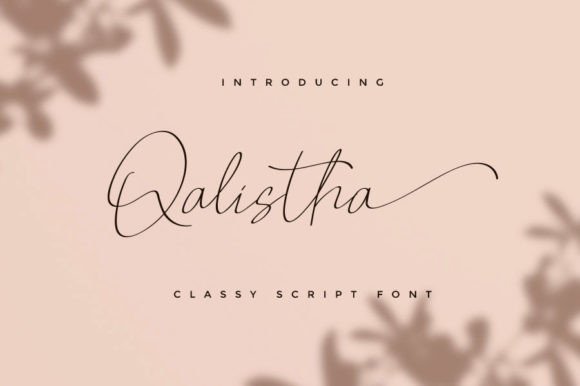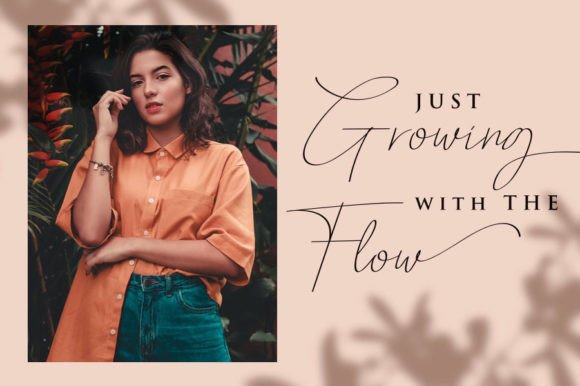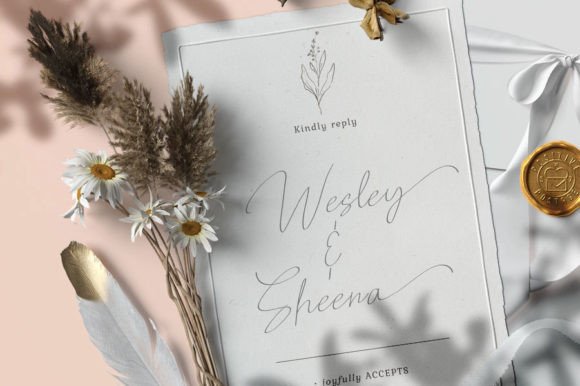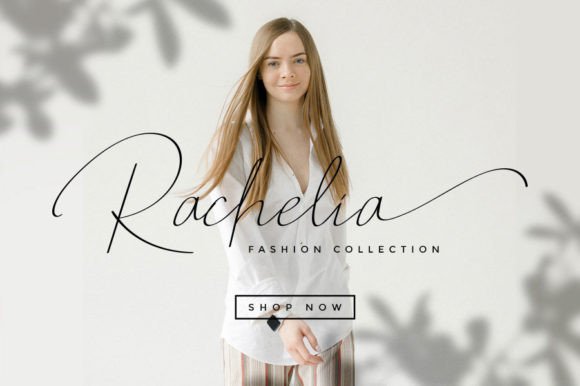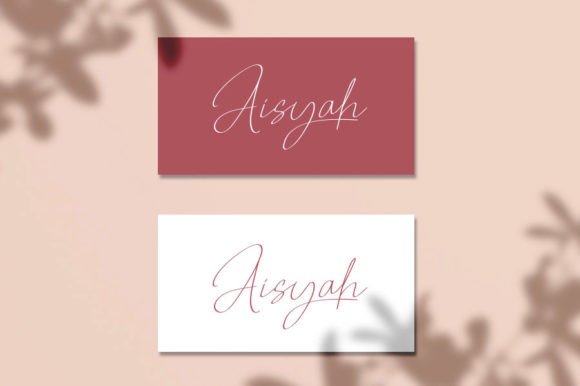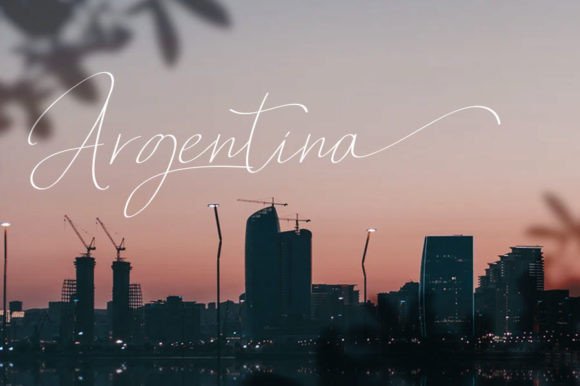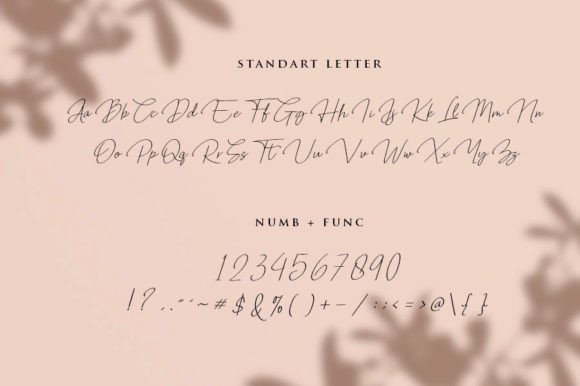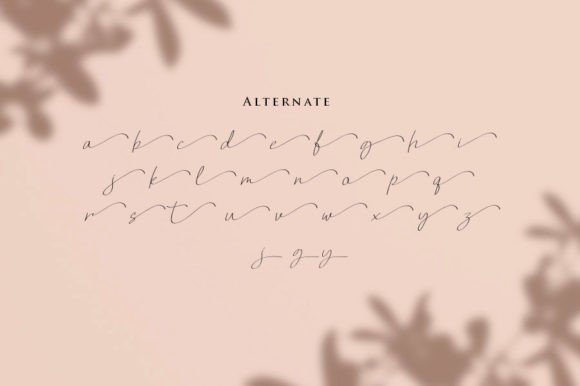
HomeScript FontsQalistha Font Script Fonts Qalistha Font FacebookXPinterestWhatsApp Qalistha Font Poster 2 Qalistha Font Poster 3 Qalistha Font Poster 4 Qalistha Font Poster 5 Qalistha Font Poster 6 Qalistha Font Poster 7 Qalistha Font Poster 8 Qalistha Font Poster 9 About Qalistha Font Qalistha is a sweet and elegant script font that will turn any design idea into an authentic piece of art! DOWNLOAD ON CREATIVE FABRICAThis font is sold and delivered by Creative Fabrica. Font Canyon may earn a commission if you buy through this link. People also explored Watermelon Font Roseblue Font Kindalike Font Fun Happens Font Crowd Heart Script Font Butterfly Font Flower Tops Font Cosmo Space Font Shania Quinton Font 311 0 TagsQalistha Font Previous articleCothelina FontNext articleCanthika Font LEAVE A REPLY Cancel reply Comment: Please enter your comment! Name:* Please enter your name here Email:* You have entered an incorrect email address! Please enter your email address here Website: Save my name, email, and website in this browser for the next time I comment. Personal Use Free Open Heart Personal Use Free Read more about this font White Rose Personal Use Free Read more about this font Concre Personal Use Free Read more about this font Zero Hour Personal Use Free Read more about this font BLOG Top 7 Google Fonts Alternatives for Faster and Privacy-Friendly Web Design (2025) Top 7 Google Fonts Alternatives for Faster and Privacy-Friendly Web Design (2025) When it comes to web typography, Google Fonts has long been the go-to... 5 Fonts That Will Dominate Design Trends in 2026 How to Cut Any Font on Cricut: Convert a Font to SVG (Free) How to Install and Use Fonts on Windows, macOS, and Web Projects